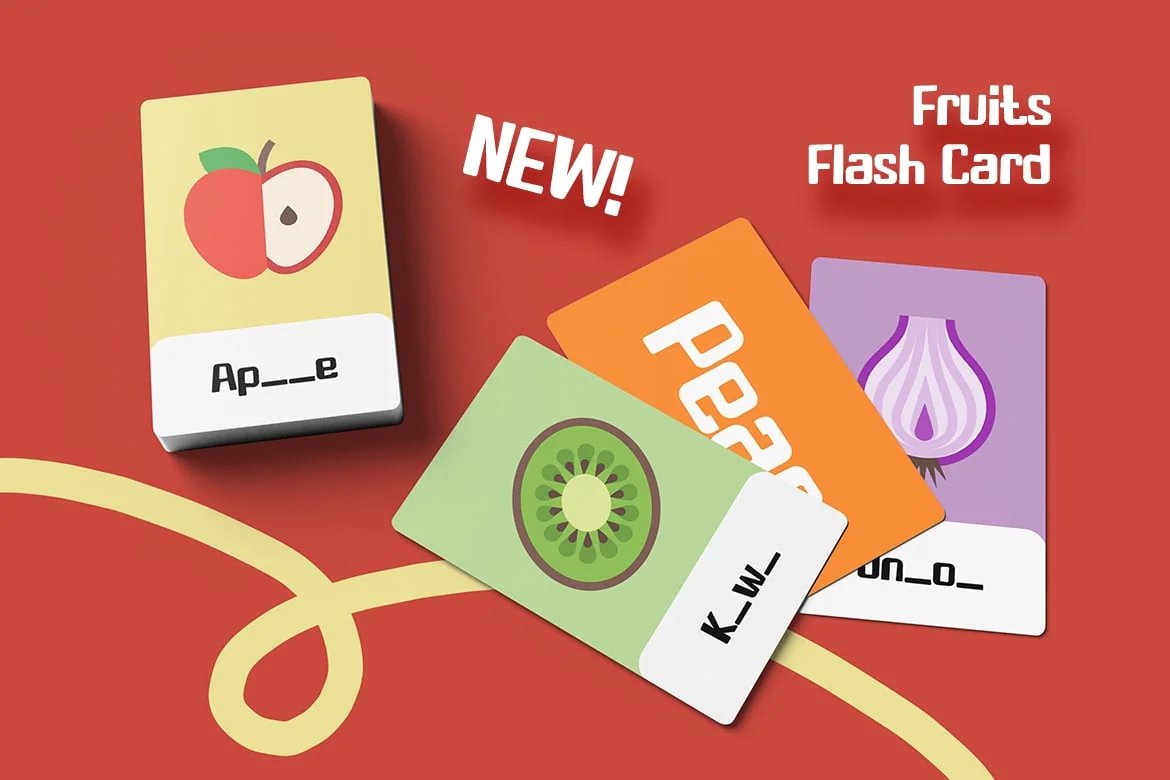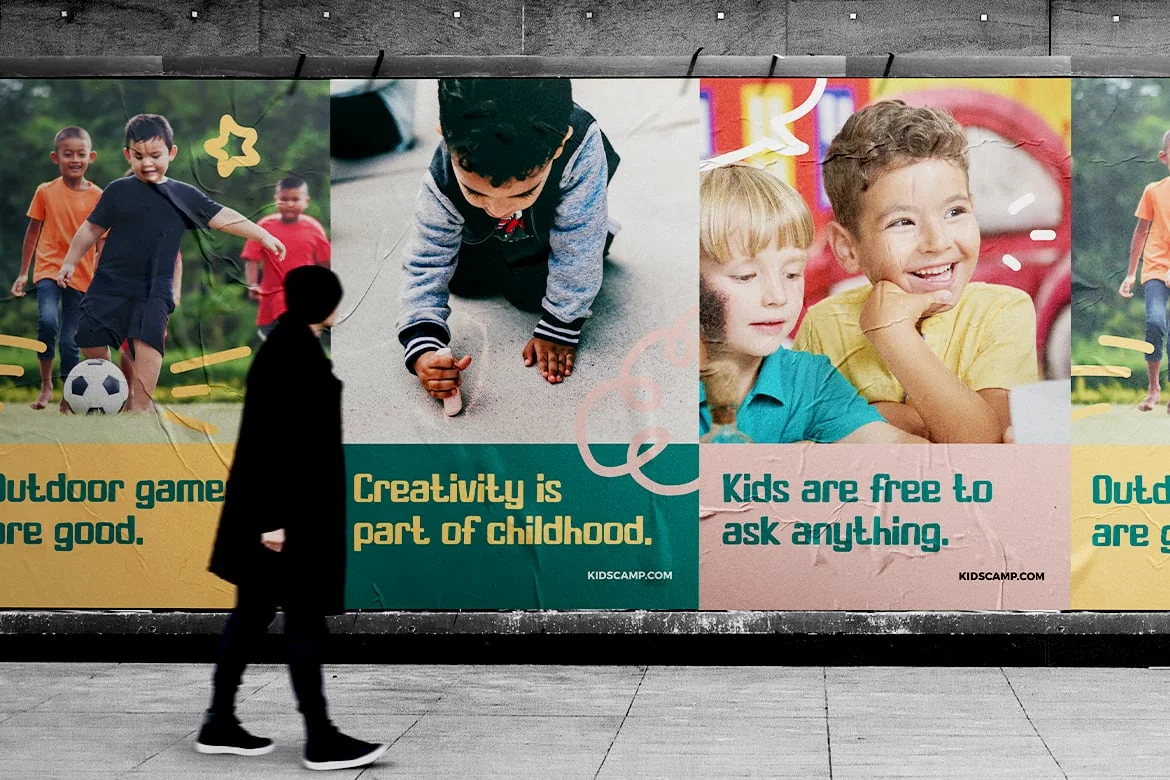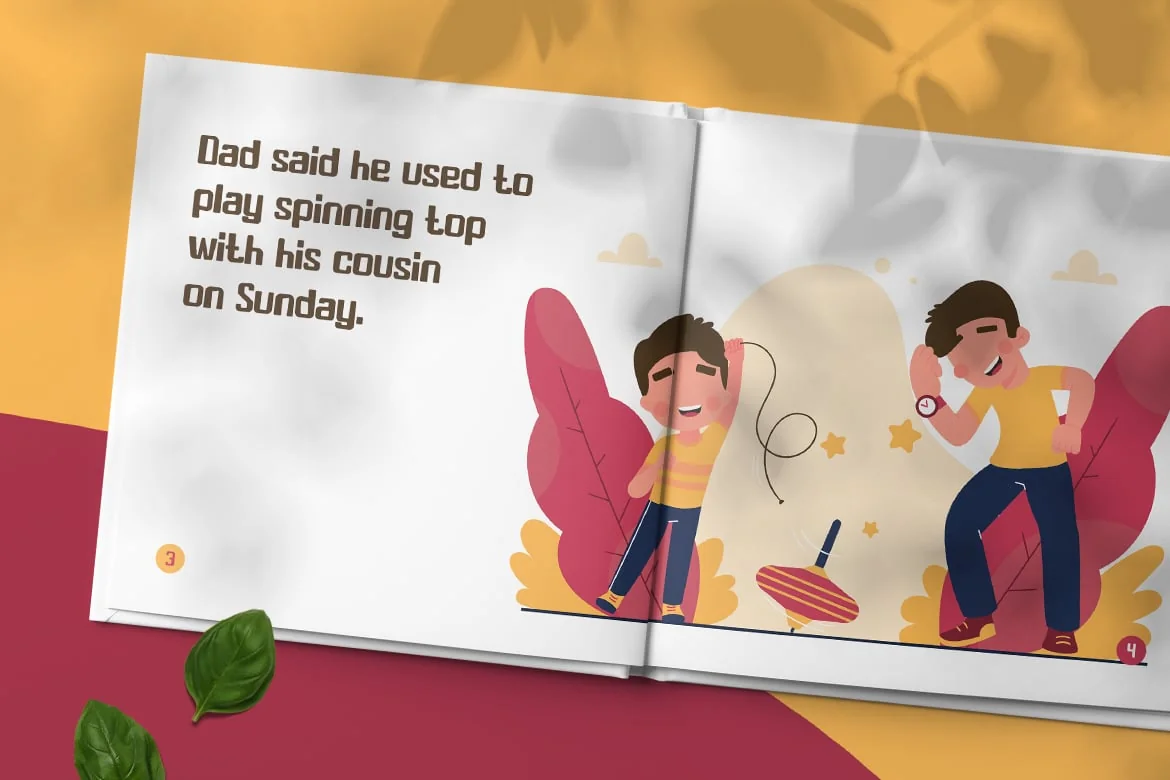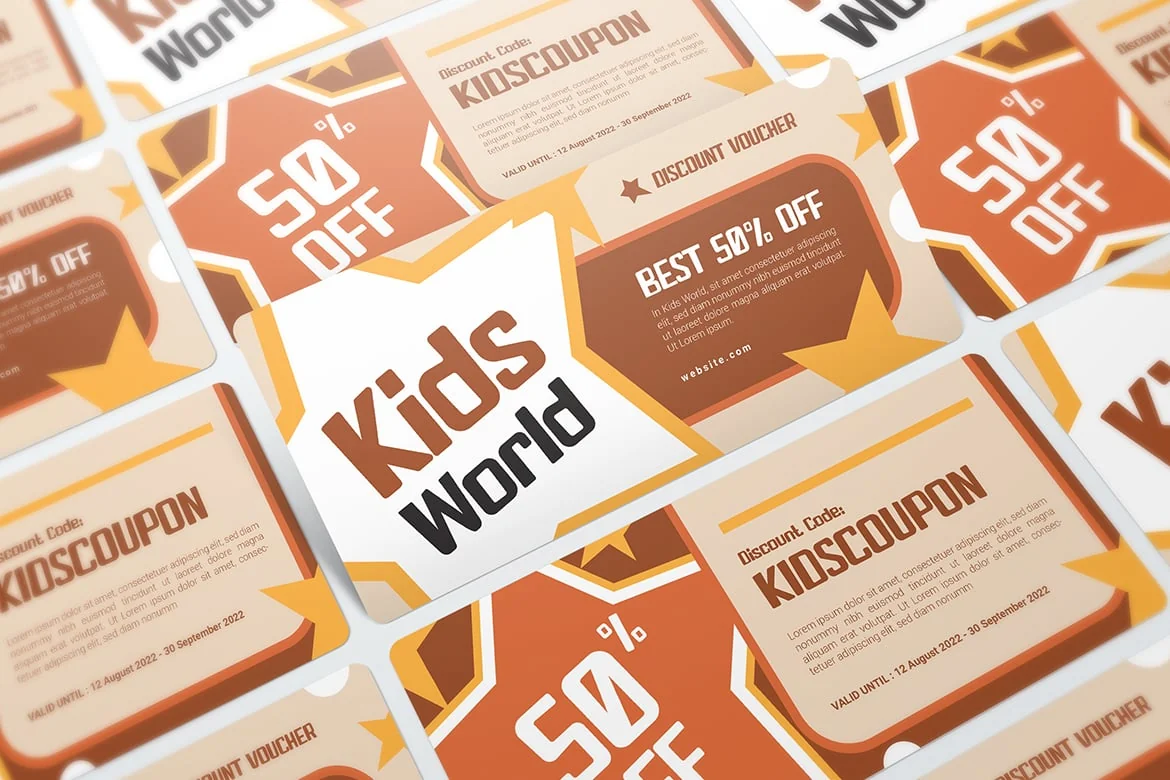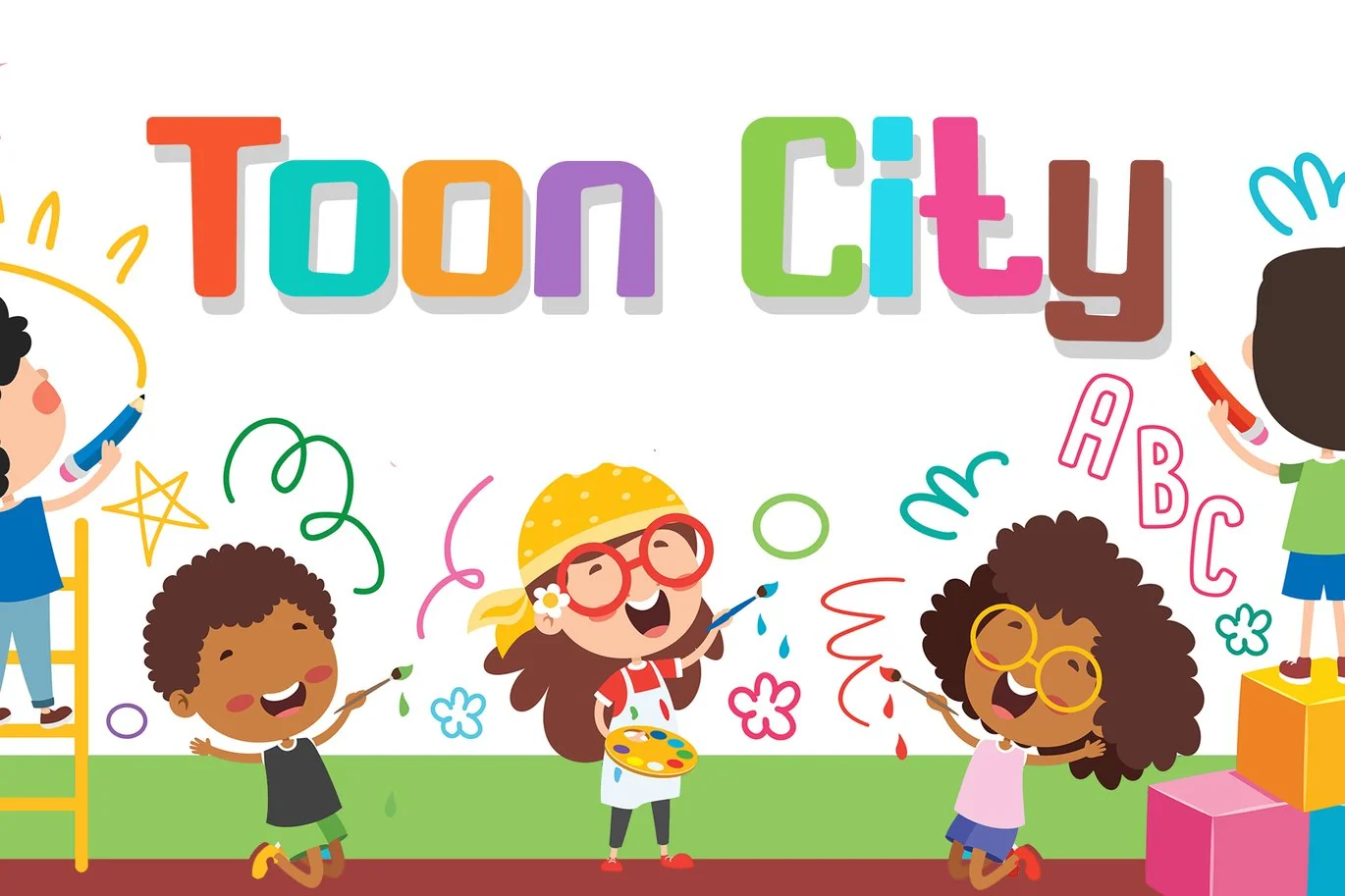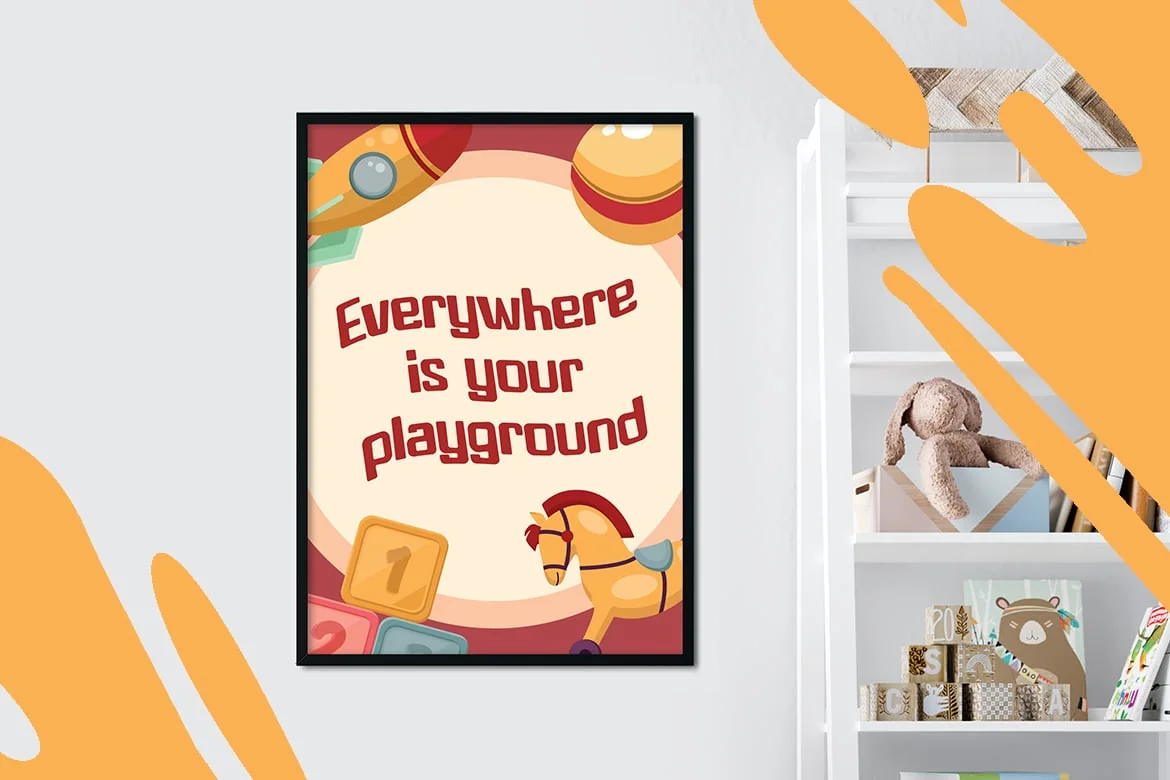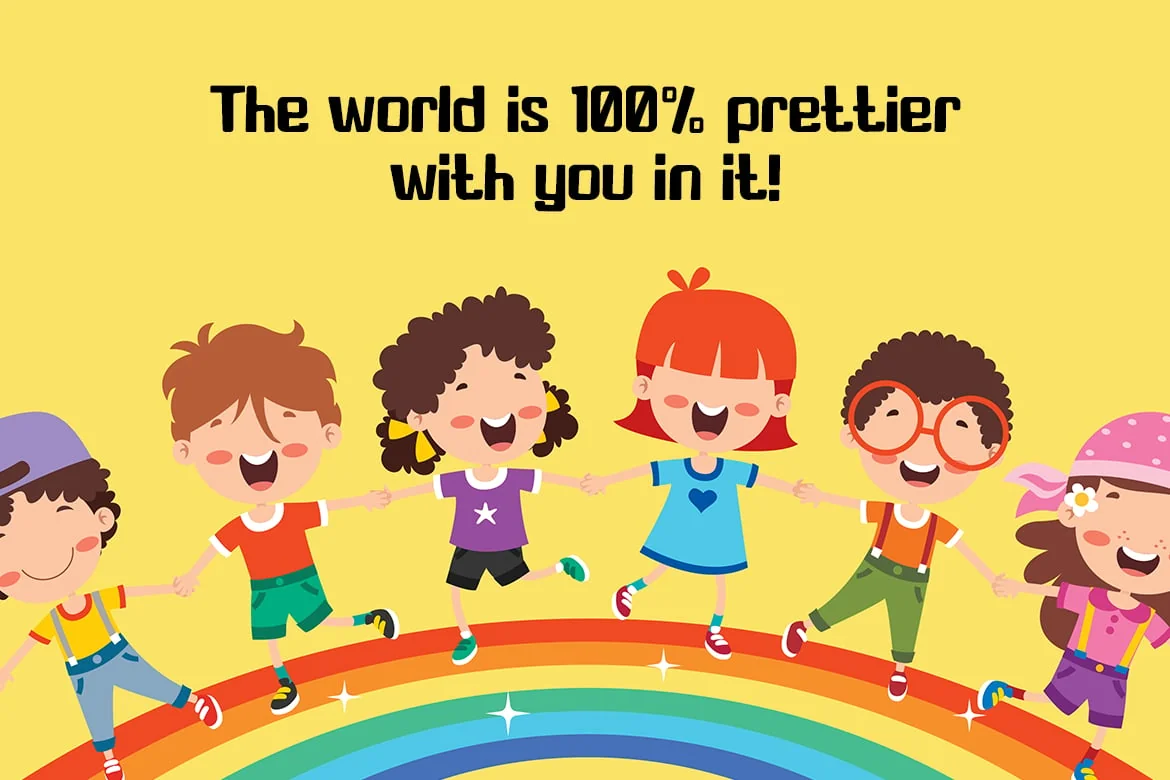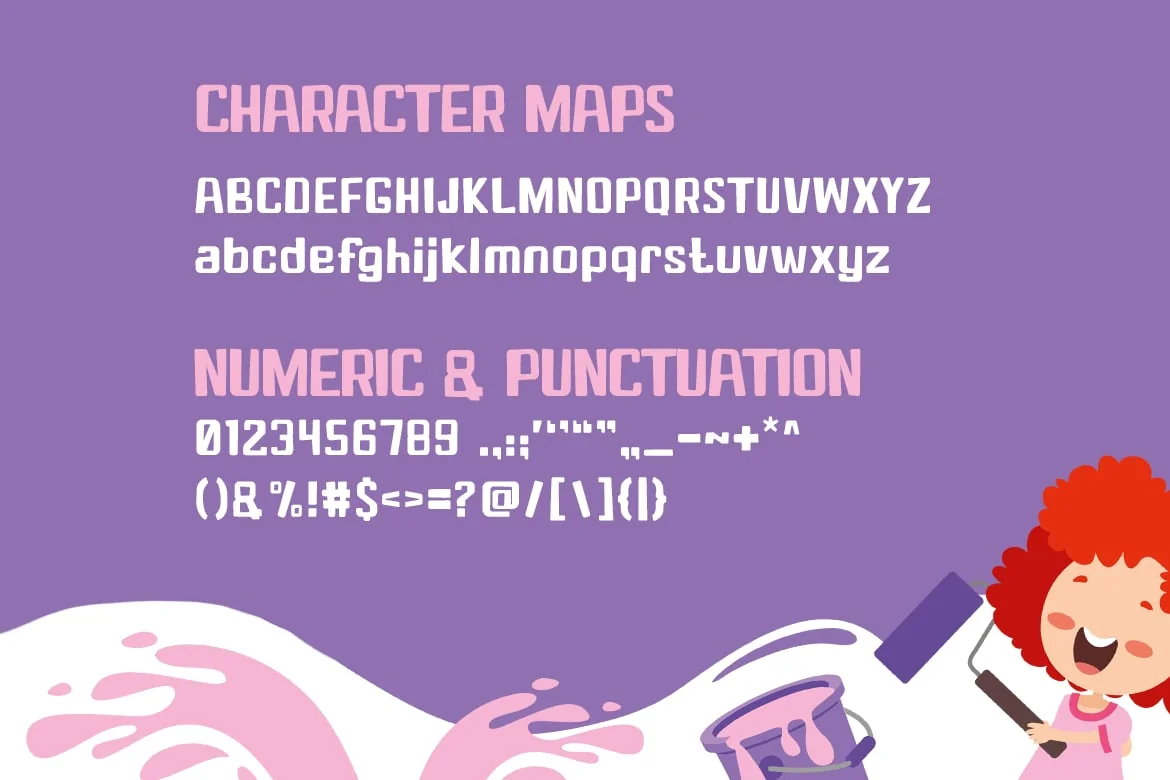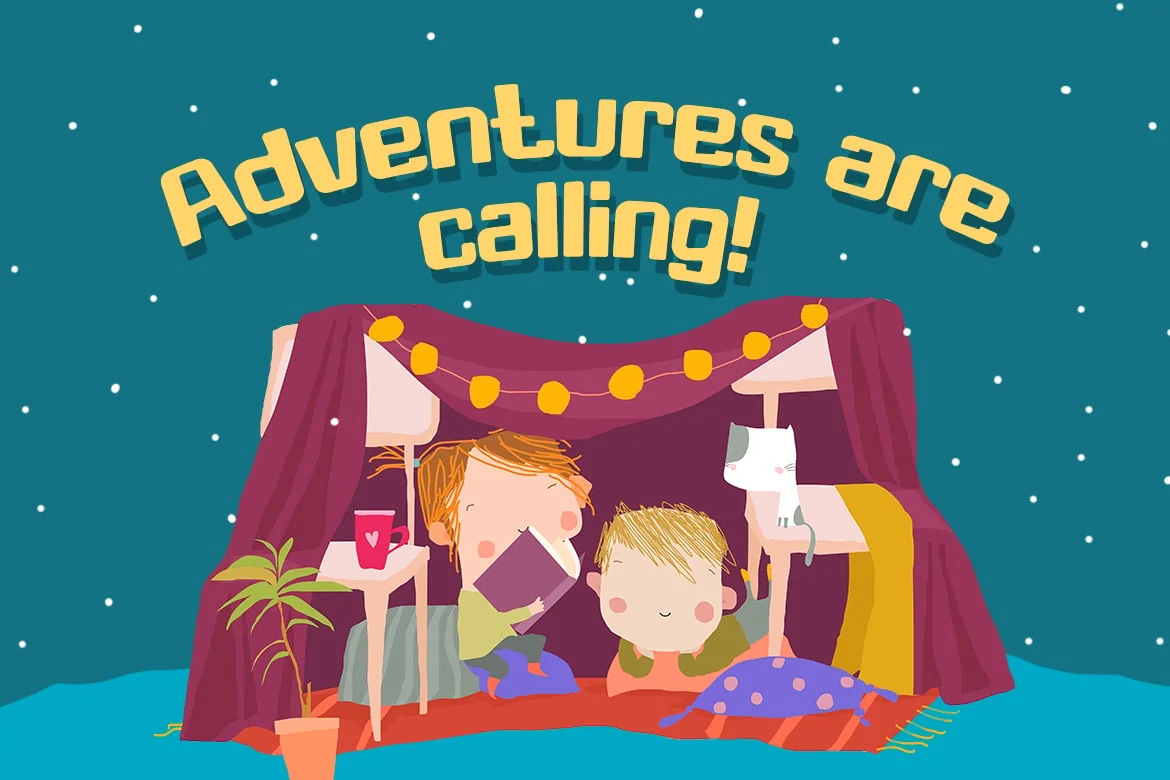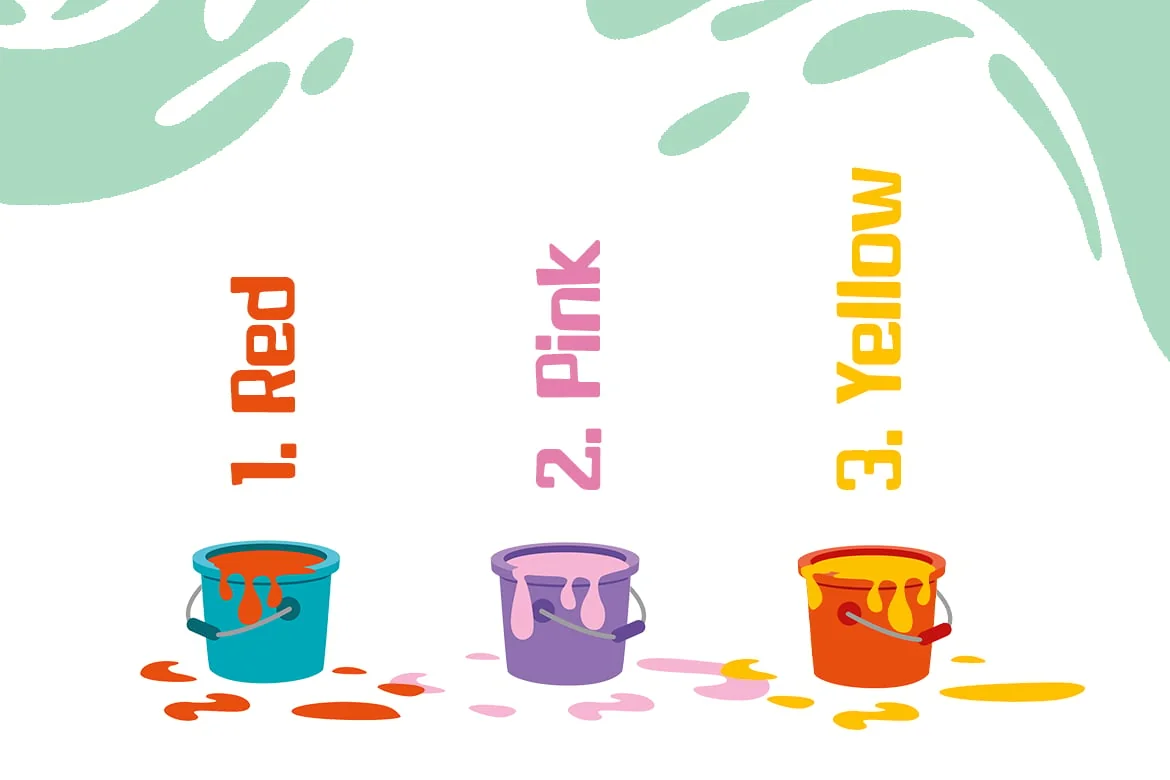
Toon City – Kids Font
A cute perfectly made serif font for kids. The read-ability is top notch and will engage the children to hook along the story written with it.
Suit perfect for pop children’s books market, online games, teens event posters, school supplies font, posters, movie titles, youtube covers, youtube thumbnails, social media page covers, and so on…